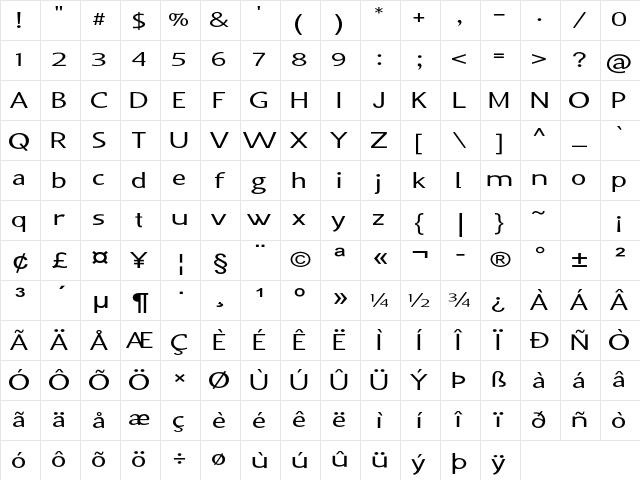
Inchworm Expanded Regular
Style: Expanded Regular
Inchworm Family
Inchworm Expanded Regular
Complete Inchworm Expanded Regular glyph index. Displaying only characters natively supported by Inchworm Expanded Regular font.
Design Context for Inchworm
Inchworm is a composed and adaptable typeface that performs quietly and consistently across a wide range of design contexts.